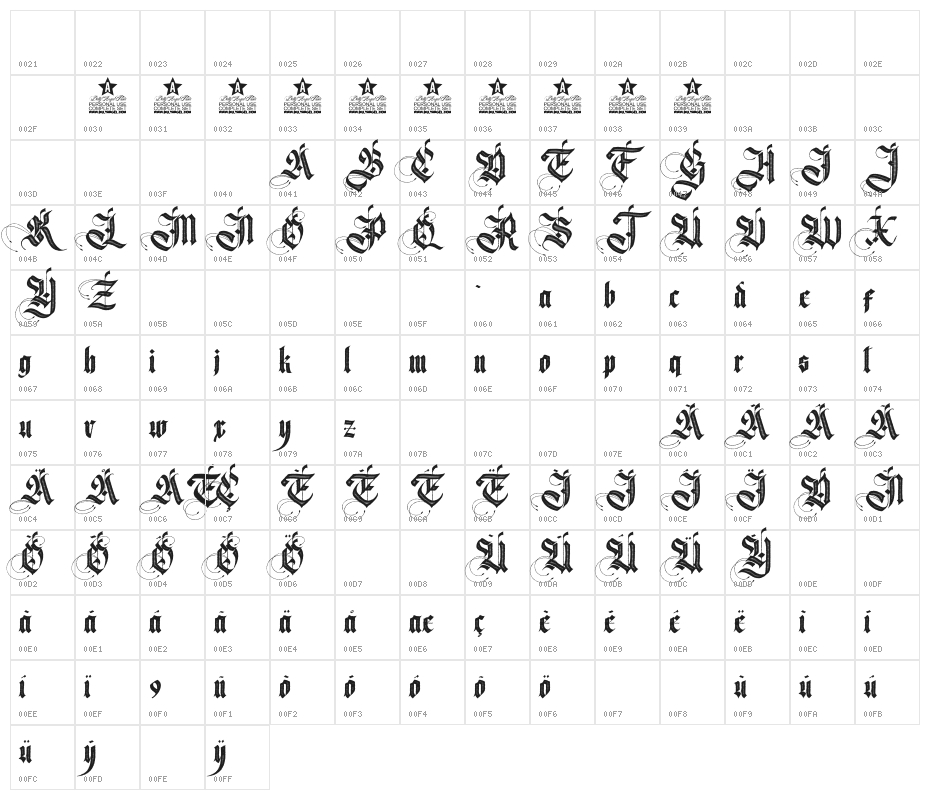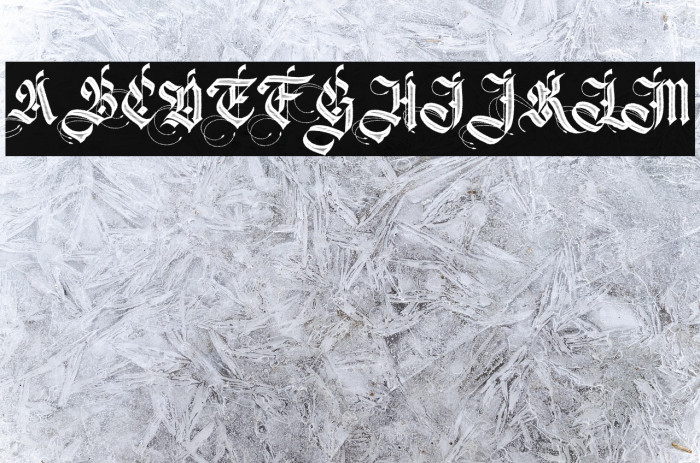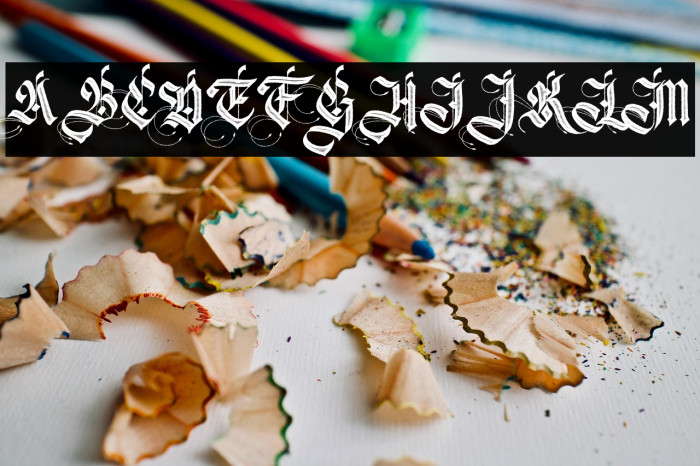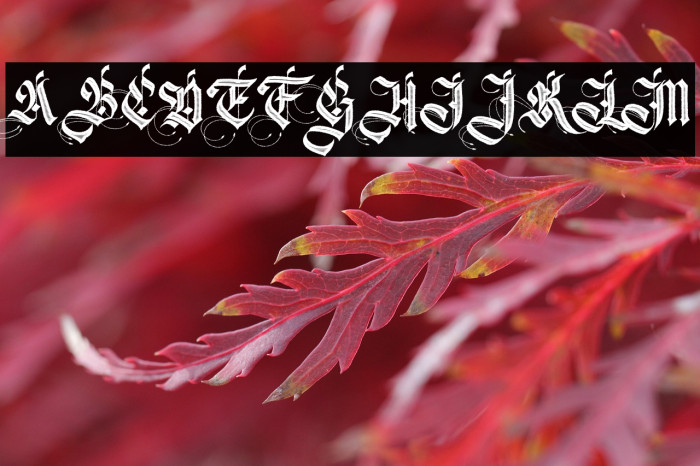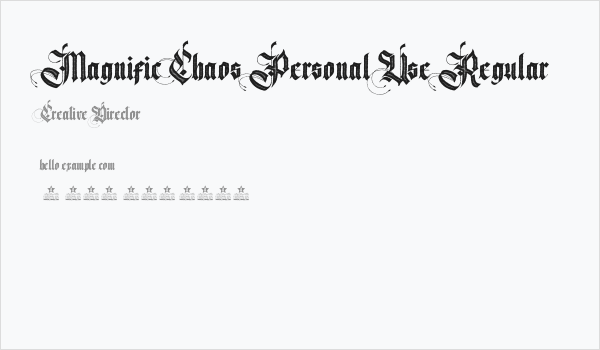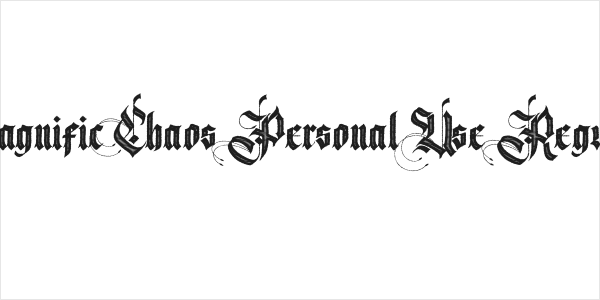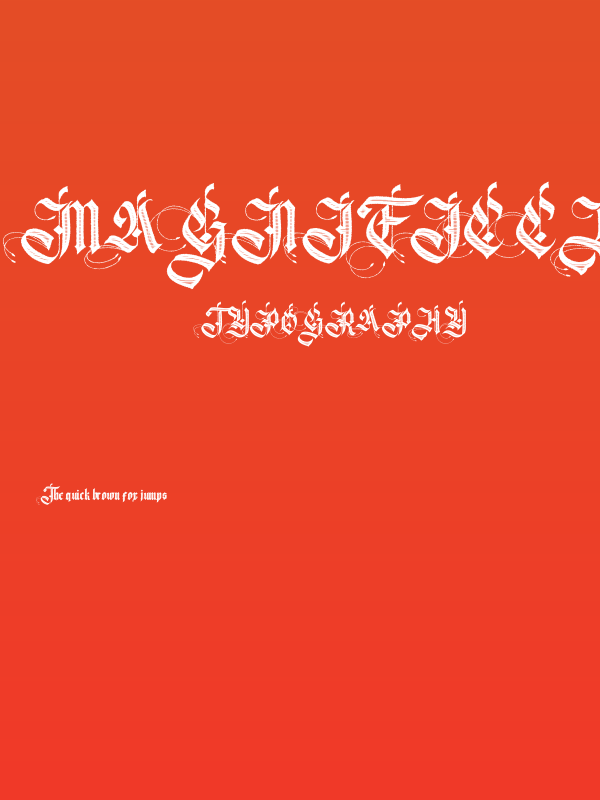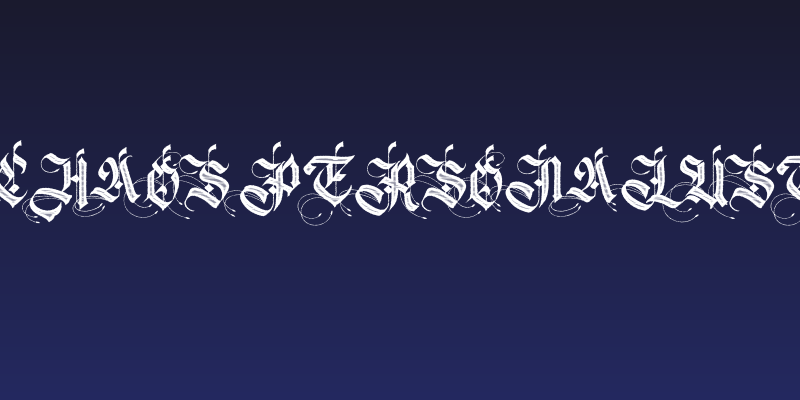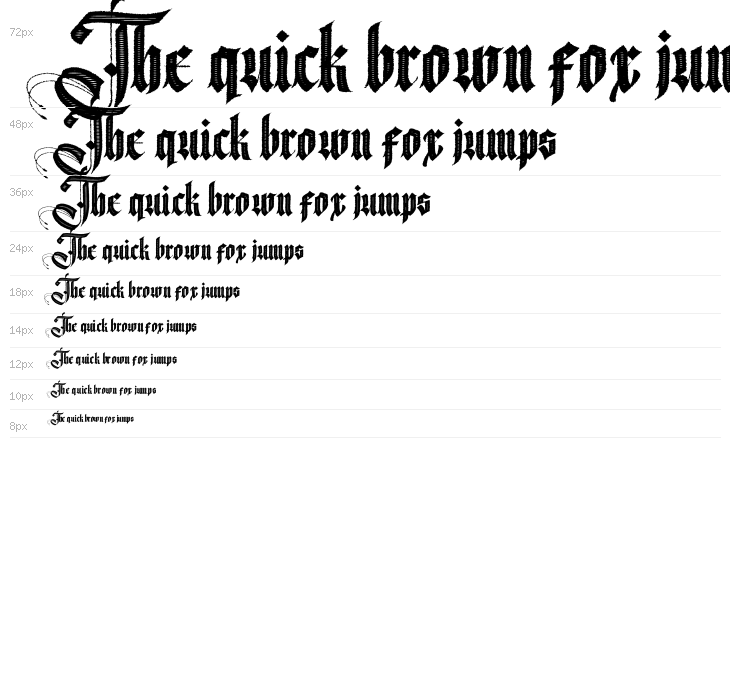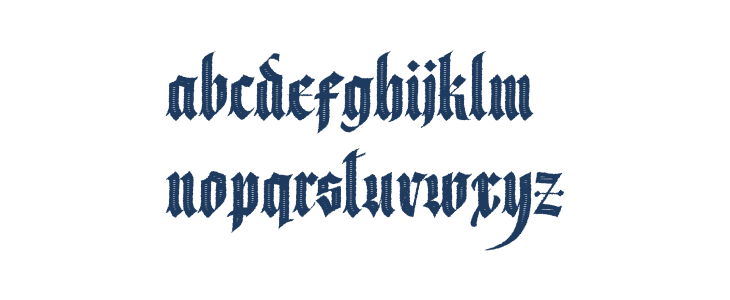
Magnific Chaos Personal Use Regular Font
Magnific Chaos Personal Use Regular Description
This font features a dramatic and ornate style, reminiscent of traditional calligraphy with a modern twist. The uppercase letters are adorned with intricate flourishes and swashes, giving them a regal and decorative appearance. The lowercase letters maintain a strong presence with bold strokes and sharp angles, creating a striking contrast against the more elaborate uppercase forms. The overall design is highly detailed, making it suitable for projects that require a touch of elegance and sophistication. The font's unique character is further enhanced by its high contrast in stroke thickness, adding to its visual impact.
| Proposed Projects | Ideal for wedding invitations, certificates, branding, and decorative headlines. |